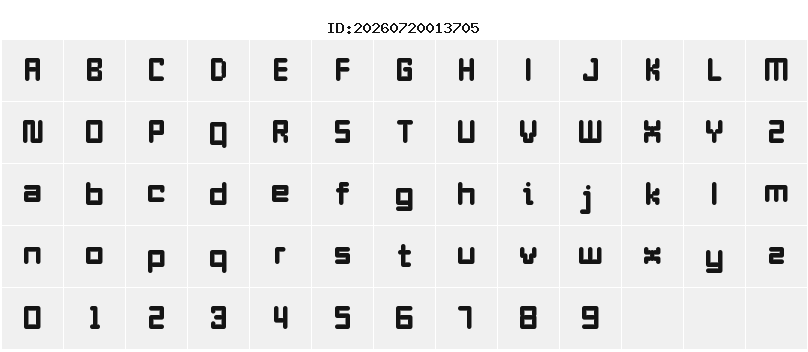
Enam Preview
• Font Name: Enam
• Font Style: ExtraBold
• Full Font Name: Enam ExtraBold
• Manufacturer: YouWorkForThem
About Enam.ttf
Enam.ttf is a modern, elegant sans-serif font designed for ultimate readability and visual harmony. Perfect for branding, headlines, web design, and print materials.